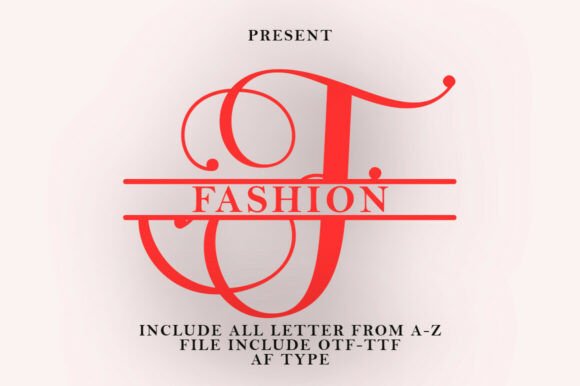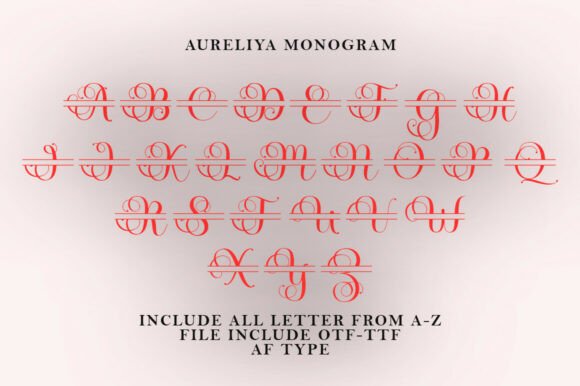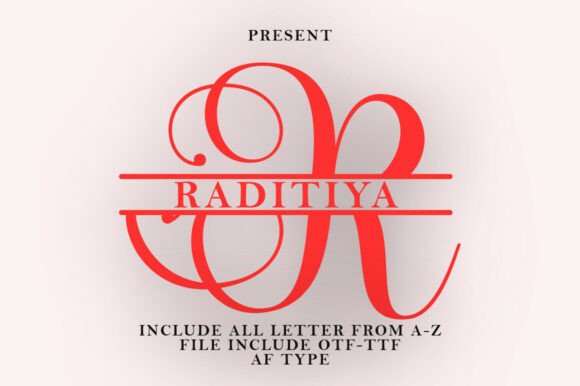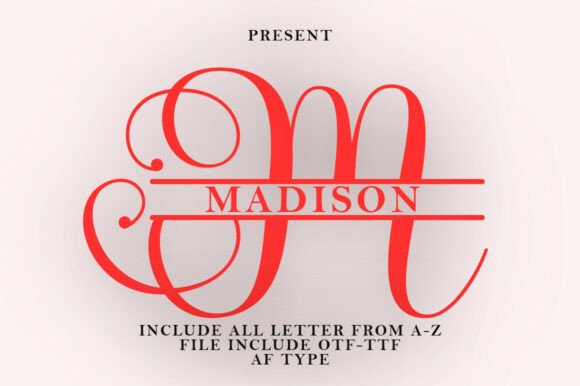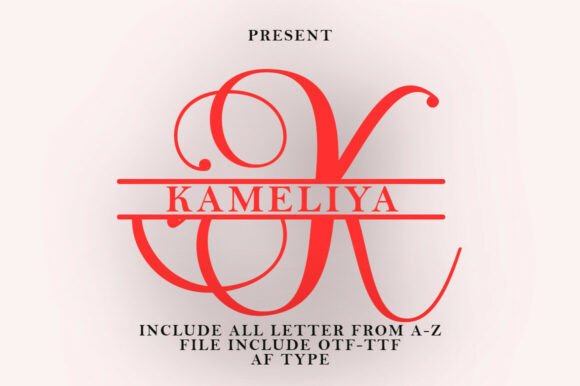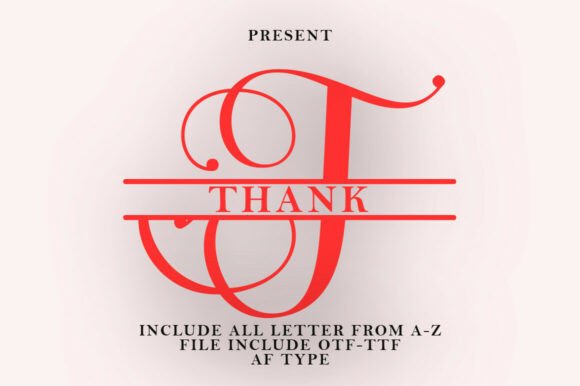
A Touch of Elegance: Discovering the Aureliya Font
Have you ever stared at a blank page, feeling like your creativity is stuck in neutral? Maybe you’re planning a wedding, and the pressure to create the perfect invitation is mounting. Or perhaps you’re a social media enthusiast, searching for the perfect font to give your posts a little extra oomph. Whatever the case, we’ve got just the thing to get your creative juices flowing – the Aureliya Monogram font.
This charming decorative font is a game-changer for designers, adding a touch of authenticity and whimsy to any project. Whether you’re crafting beautiful stationery, designing gorgeous social media posts, or creating cute greeting cards, Aureliya Font is the perfect companion. Its unique blend of elegance and playfulness makes it a valuable asset for any designer looking to add a little something special to their work.
- Unique Characteristics: Elegant, modern script font with a touch of sophistication, ideal for wedding invitations, certificates, and other formal documents
Aureliya Font Review
I’ve had the chance to work with the Aureliya Font, and I’m here to share my honest review. Overall, I think it’s a solid addition to any designer’s toolkit. ✨ Here are some things that work well:
- Unique aesthetic: Aureliya’s quirky, elegant feel sets it apart from more common fonts.
- High-quality rendering: Whether on-screen or in print, the font looks crisp and refined.
- Good legibility: The font’s design ensures that text is easy to read, even at smaller sizes.
However, like any font, Aureliya has its limitations. ⚠️ Here are a few things to be aware of:
- Limited language support: Aureliya may not be the best choice for languages that require more complex typography.
- Not ideal for body text: While the font works well for headlines and titles, it may not be the best choice for large blocks of text.
- Some characters may require manual adjustment: A few characters, like the ‘g’ and ‘q’, may need tweaking to ensure proper rendering.
Overall, I think the Aureliya Font is a great choice for designers who want to add some personality to their projects. With a little finesse, it can be a real showstopper.
Alternatives to Aureliya Font
Lato Font is a modern sans-serif typeface designed by Łukasz Dziedzic. It’s a clean and elegant font suitable for various design projects, including corporate branding, websites, and mobile applications. Lato Font is a great alternative to Aureliya Font when you need a more contemporary look and feel.
Lato Font is more geometric and minimalistic compared to Aureliya Font, which has a more elegant and refined feel. While Aureliya Font is ideal for luxury and high-end designs, Lato Font is better suited for modern and tech-savvy projects.
Open Sans Font is a popular sans-serif typeface designed by Steve Matteson. It’s highly legible and versatile, making it a great choice for body text, headings, and titles. Open Sans Font is a suitable alternative to Aureliya Font when you need a clean and professional look.
Open Sans Font is more straightforward and less decorative compared to Aureliya Font. While Aureliya Font has a more luxurious feel, Open Sans Font is ideal for corporate, business, and educational projects.
Montserrat Font is a sans-serif typeface designed by Julieta Ulanovsky. It’s a modern and urban font inspired by the streets of Montserrat, a neighborhood in Buenos Aires. Montserrat Font is a great alternative to Aureliya Font when you need a bold and edgy look.
Can I customize the Aureliya Font to fit my specific design needs?
Yes, the Aureliya Font is a highly customizable font. It supports advanced typographic features, including ligatures, alternates, and swashes. You can also use font editing software to customize the font to fit your specific design needs.